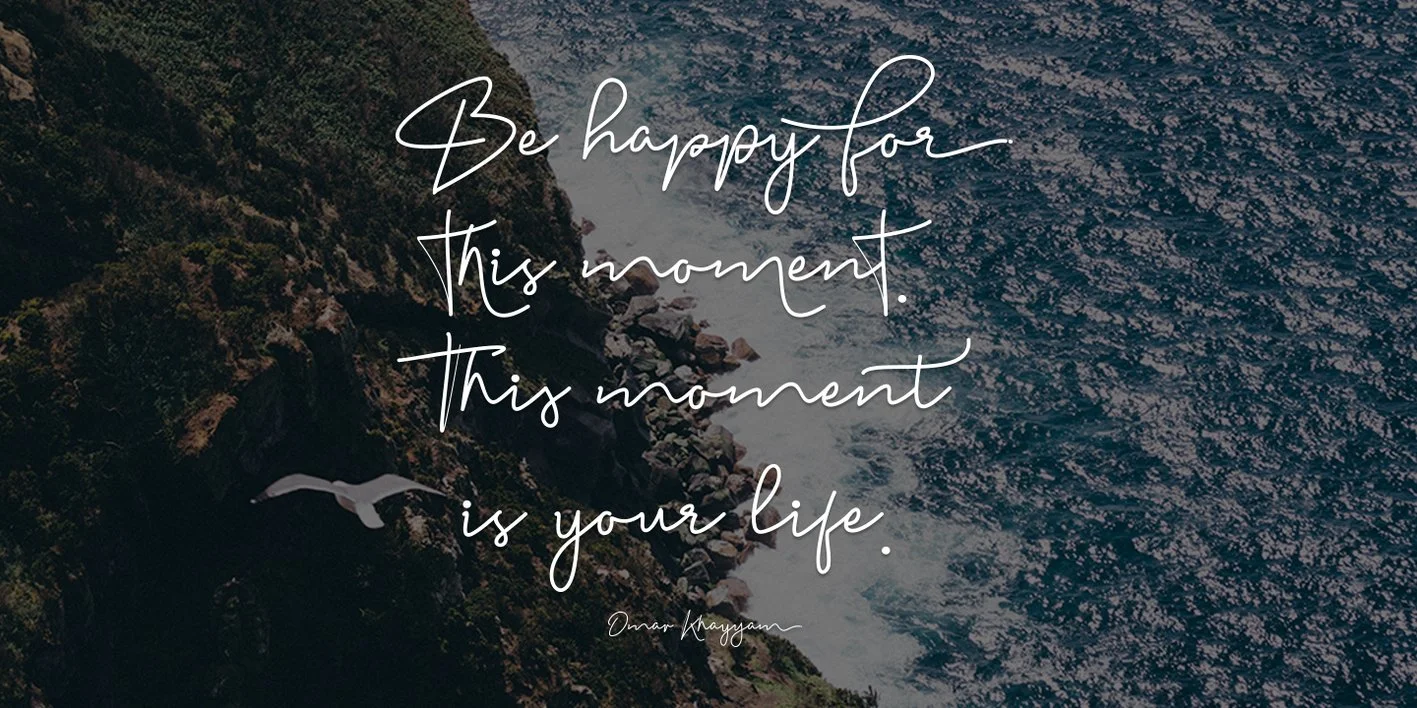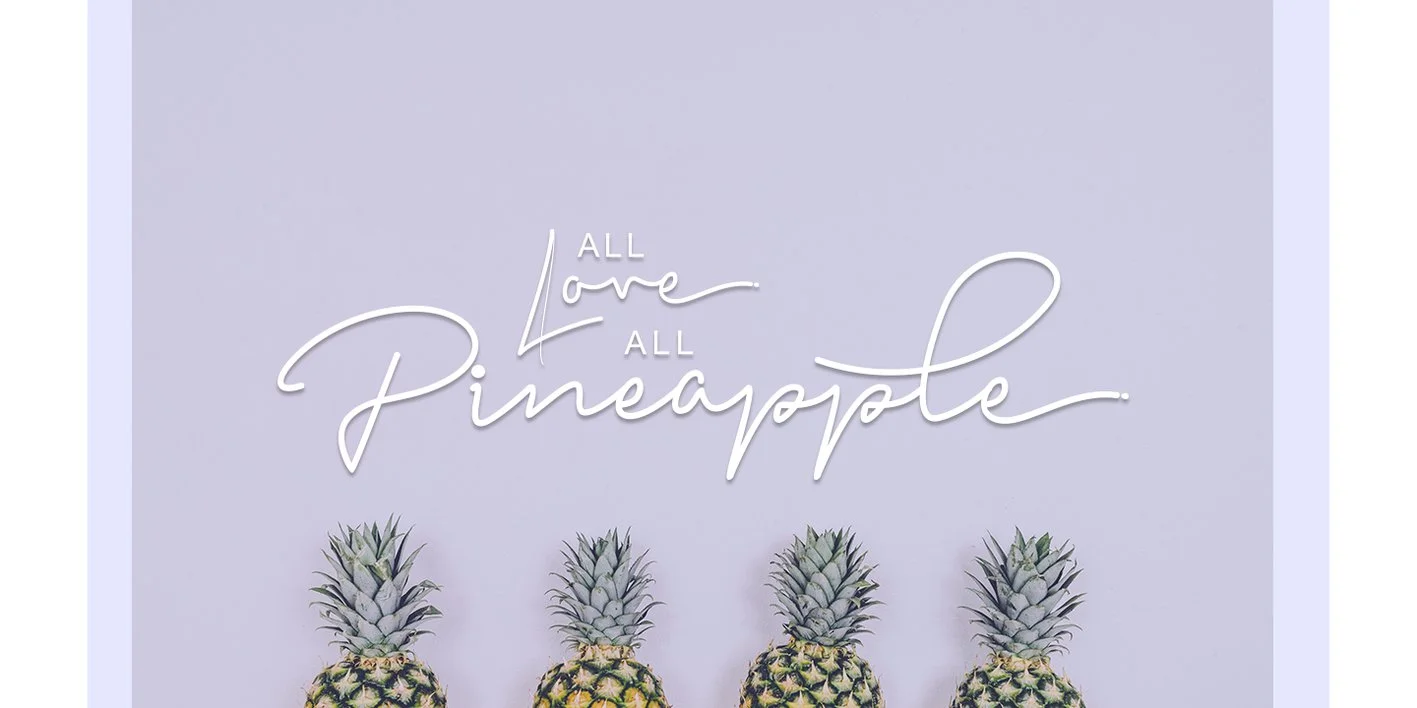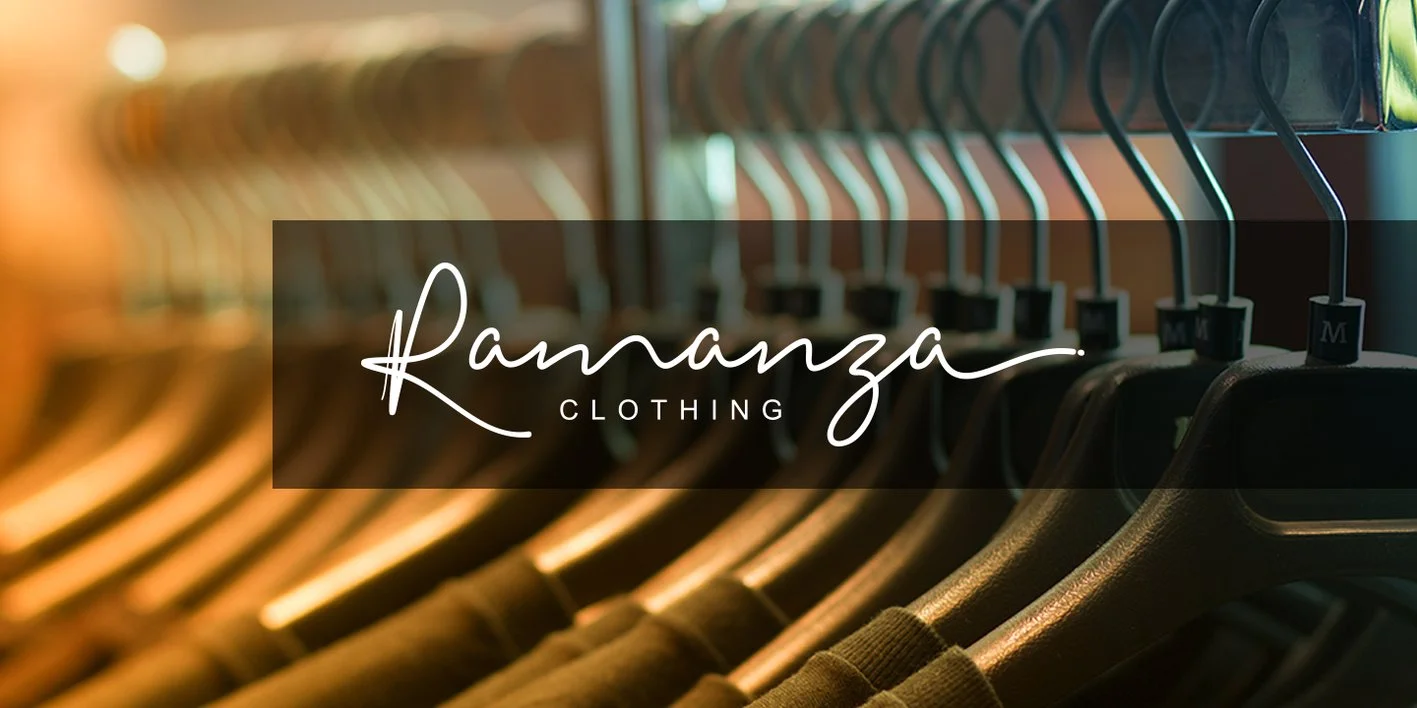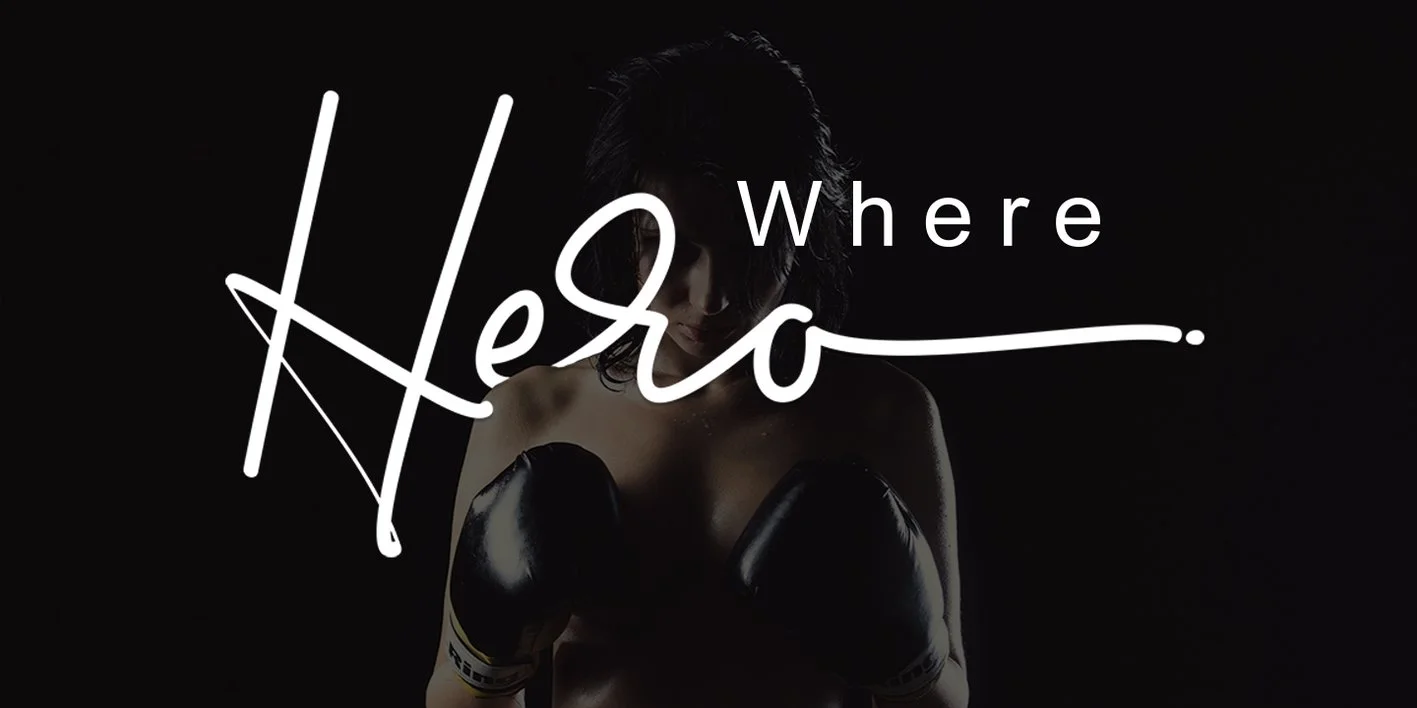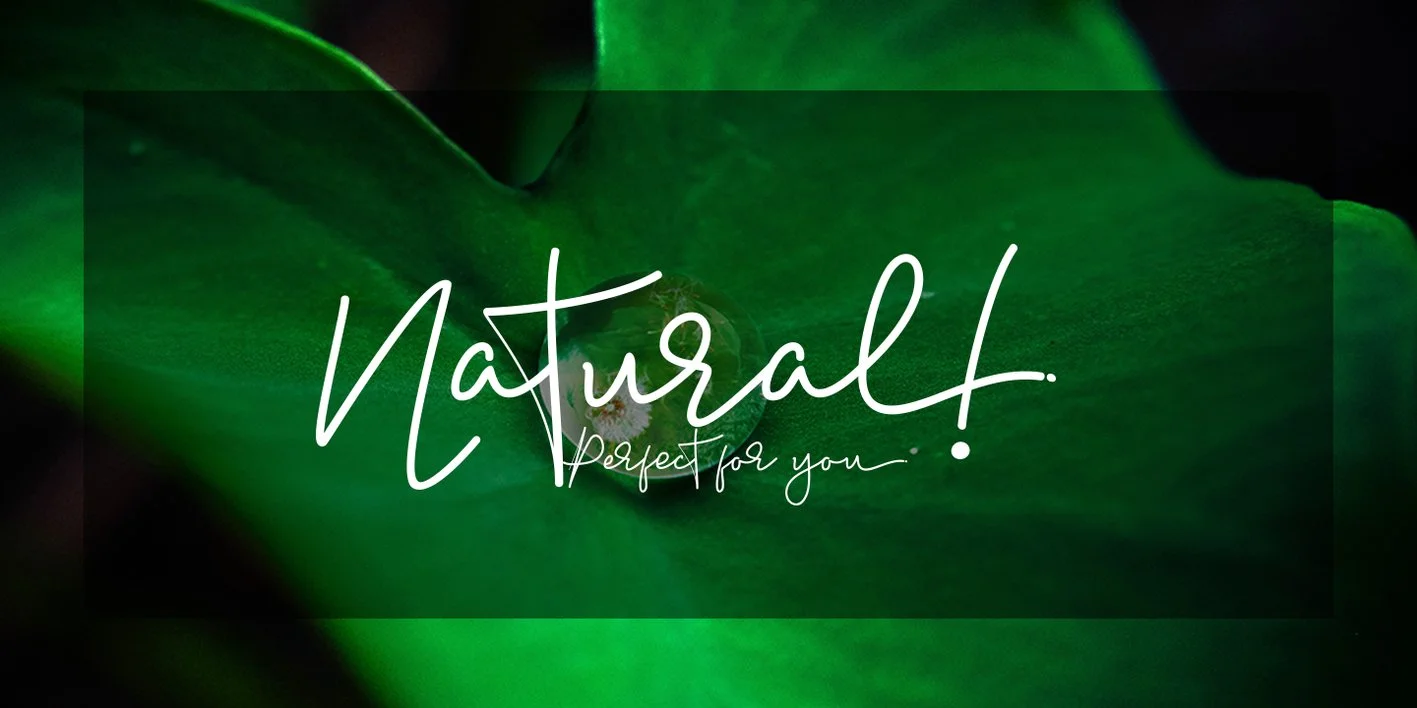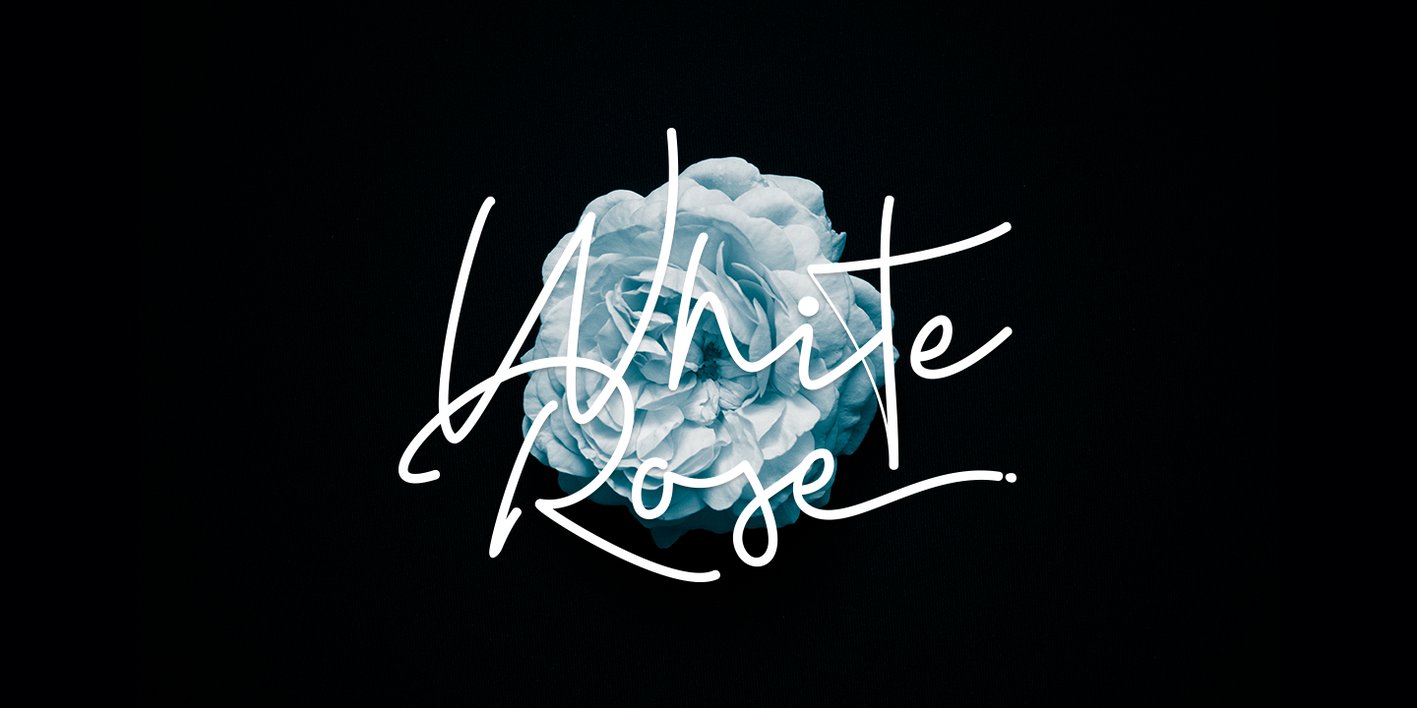
Madelon Script Font
Few typefaces manage to balance consistent type colour across continuous text with genuine day-to-day practicality. Madelon Script is one of them. The typeface brings an elegant, calligraphic sensibility to a broad range of creative disciplines, with visual harmony and precise spacing that holds up whether the work is print-first or screen-first.
In practice, Madelon Script proves particularly effective for logo design, feminine branding, web design, packaging design, boutique logos. Designers reaching for it find that the type decisions feel resolved rather than laboured — a useful quality when client timelines are tight.
The range of applications extends to event signage, bridal materials, perfume labels, fashion editorials. That breadth is deliberate: the proportions and spacing were stress-tested across a wide range of mock briefs before the typeface was finalised.
The consistent rhythm of Madelon Script across a full paragraph creates the kind of even grey value that makes extended reading comfortable, a detail that matters more in long-form content than its subtlety might suggest.
Brand strategists building visual languages find Madelon Script a reliable choice for projects that demand both personality and restraint. The design avoids the self-conscious quirkiness that dates quickly, settling instead for considered distinctiveness that holds up over time.